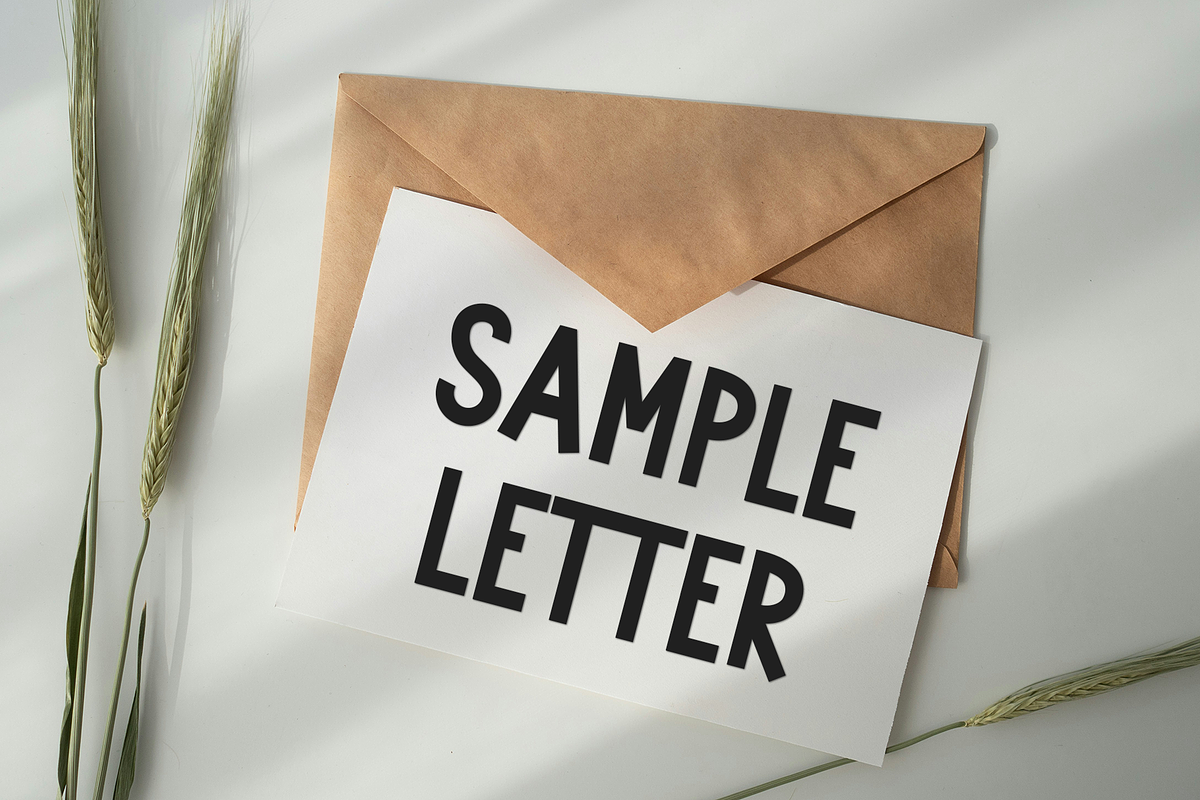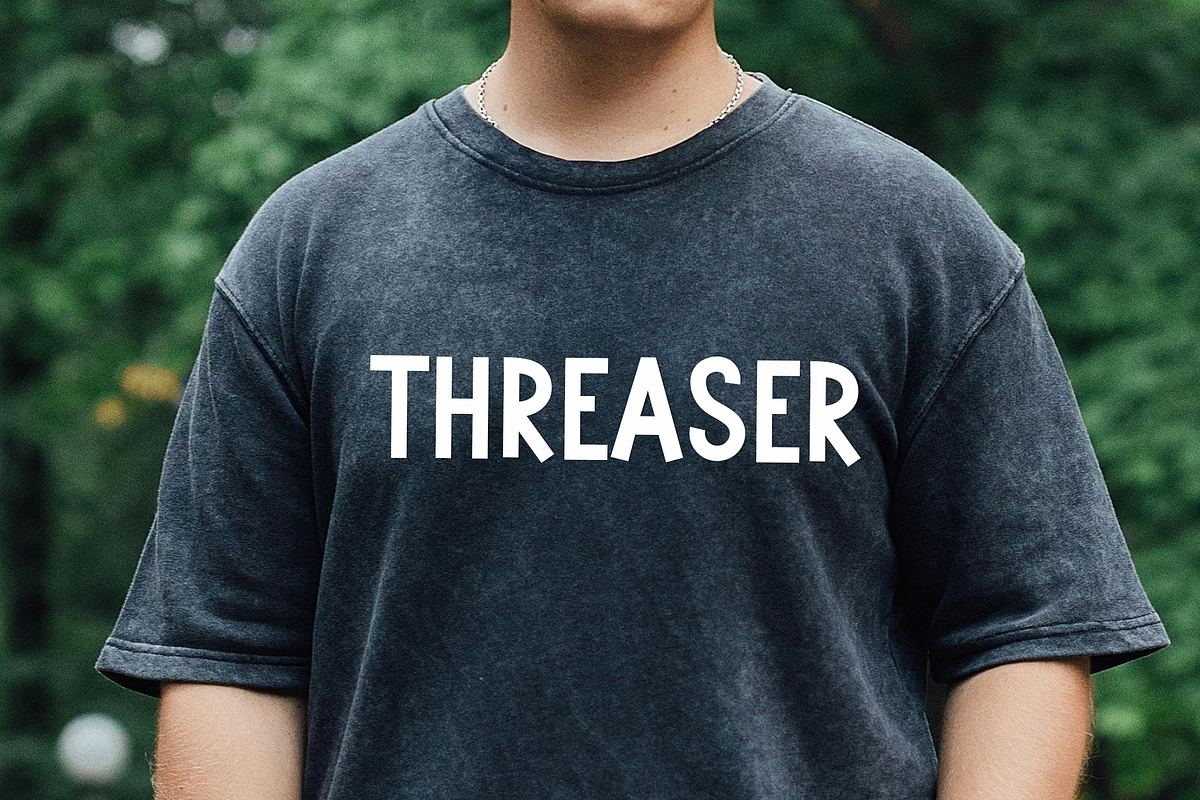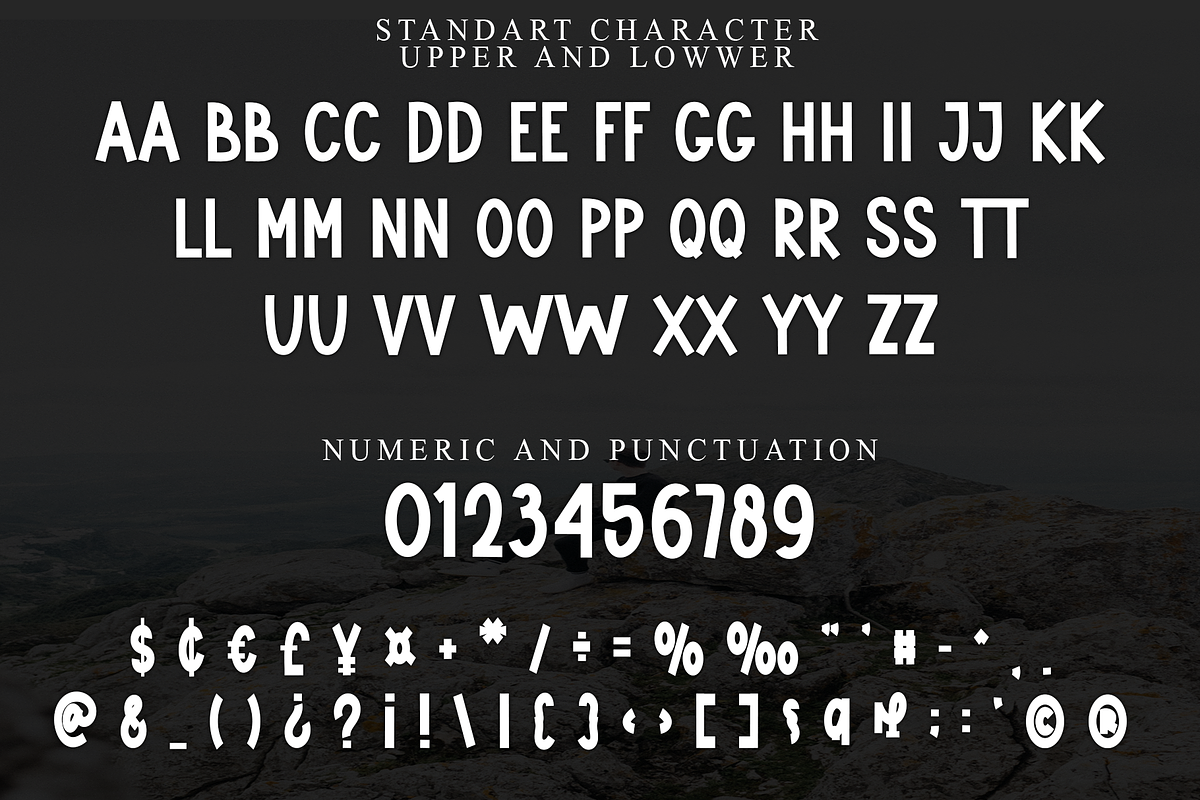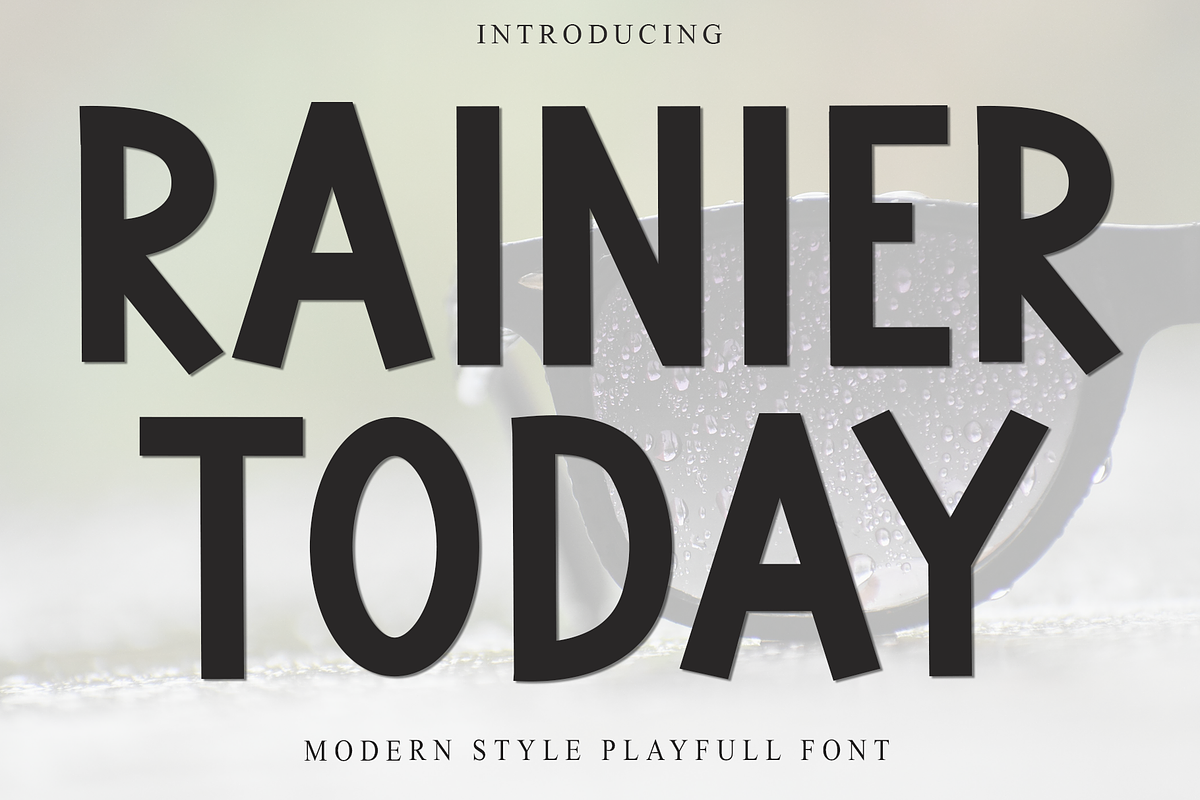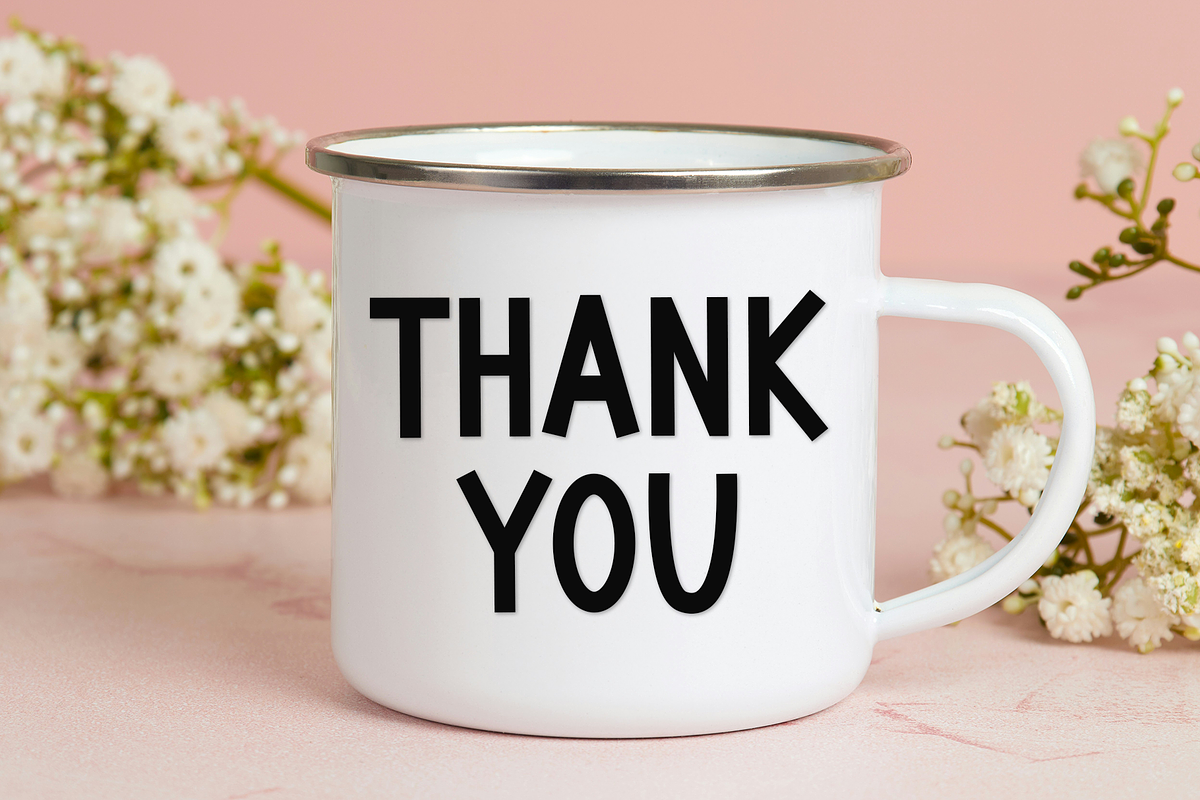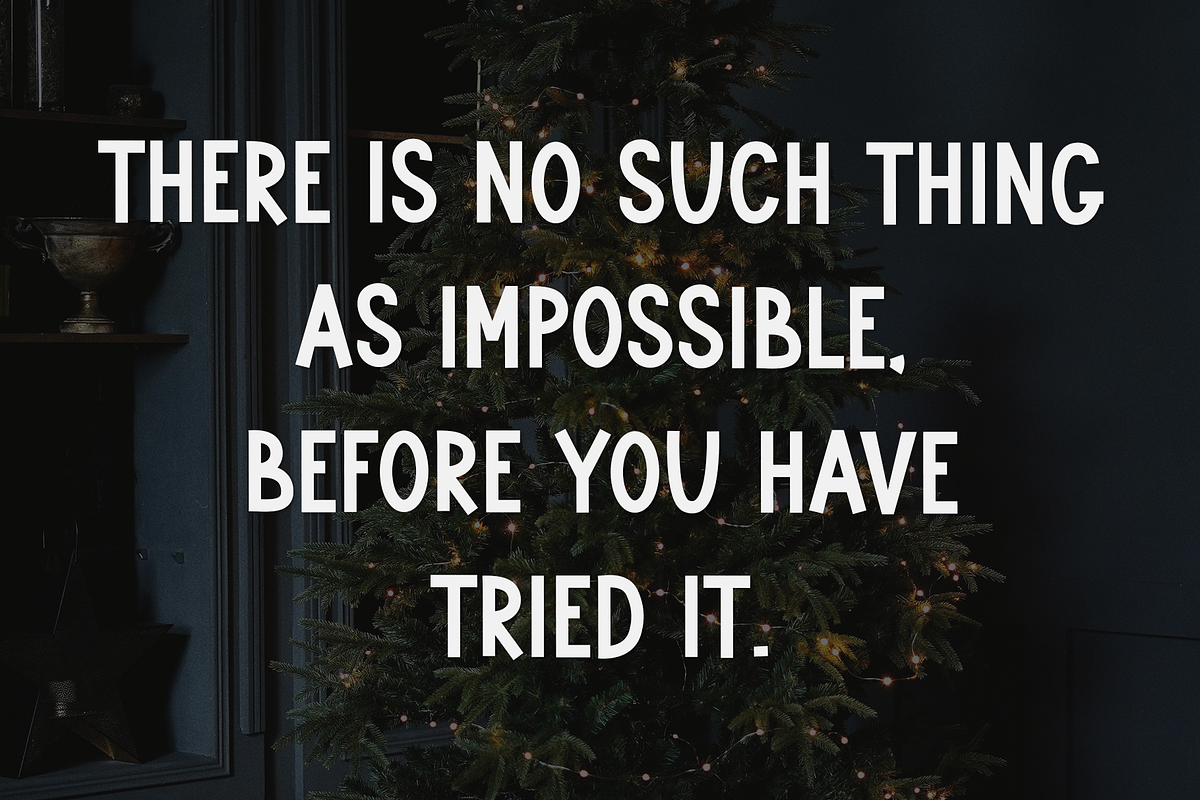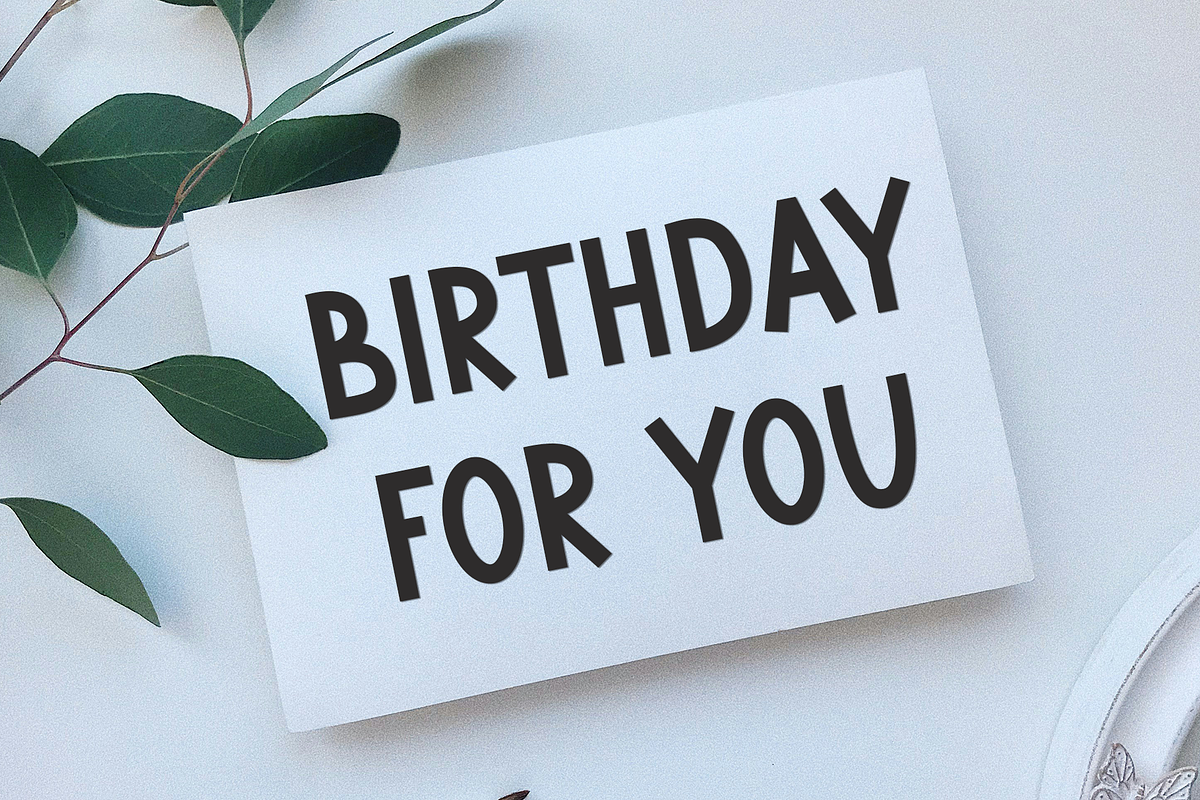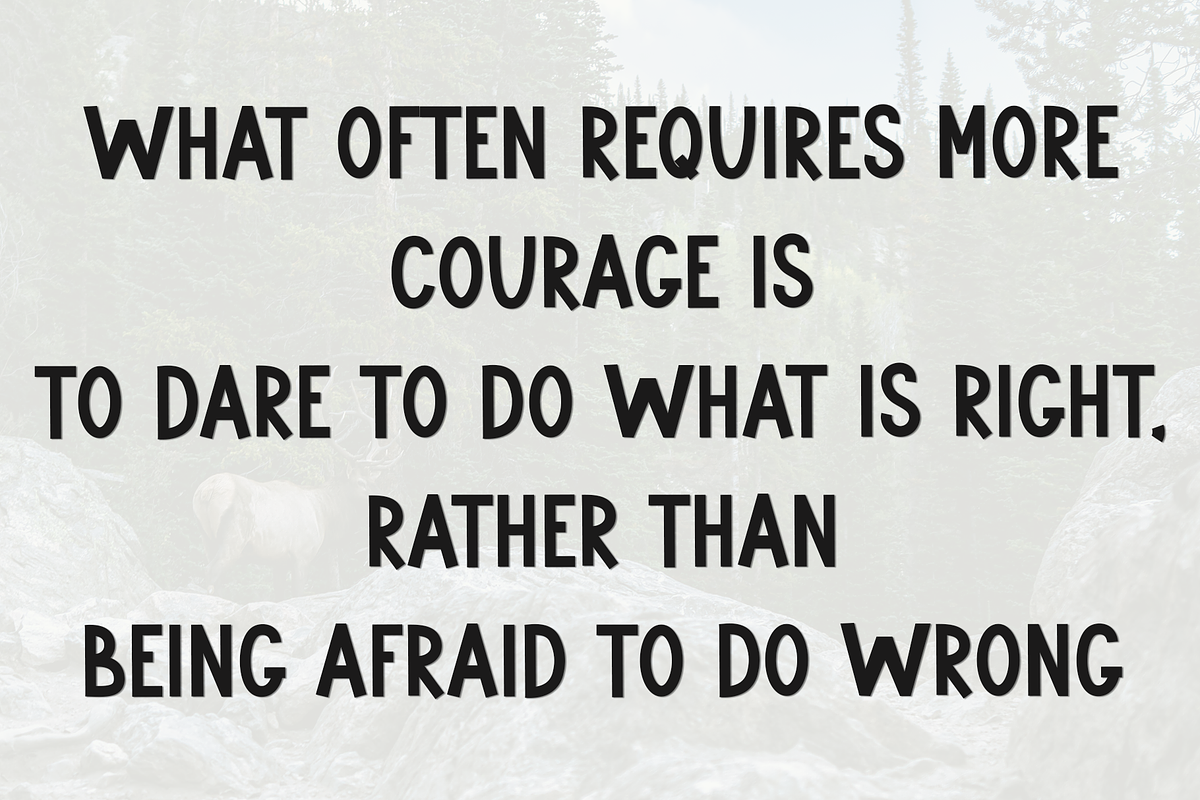
Rainier Today
Rainier Today is a beautiful and eye-catching font designed with a soft, unique touch. Its distinctive strokes give it a special character, making it meaningful and versatile for future use. With various characters, it’s perfect for design projects, crafts, and other creative works.